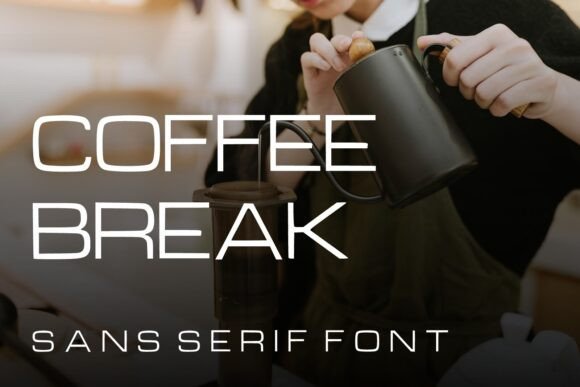
Coffee Break Font: The Ultimate Guide to a Friendly and Versatile Typeface
Are you looking for a font that exudes warmth, friendliness, and approachability? Look no further than the Coffee Break font. This uppercase, easy-to-read sans serif font has become a favorite among designers, crafters, and anyone looking to add a personal touch to their digital designs, presentations, greeting cards, and more. In this comprehensive guide, we’ll dive into the world of Coffee Break font, exploring its features, benefits, and uses.
What is Coffee Break Font?
Coffee Break font is a carefully crafted, uppercase sans serif font designed to convey impeccable friendliness. Its clean lines, simple shapes, and rounded edges make it an approachable and inviting typeface that’s perfect for a wide range of applications. Whether you’re a designer, a crafter, or simply someone looking to add a personal touch to your digital creations, Coffee Break font is an excellent choice.
Key Features of Coffee Break Font
- Uppercase design: Coffee Break font is an all-uppercase typeface, making it perfect for headings, titles, and emphasis.
- Easy-to-read: The font’s simple, sans serif design ensures that your text is clear and legible, even at smaller sizes.
- Friendliness: Coffee Break font’s rounded edges and warm feel make it an inviting and approachable typeface.
- Versatility: This font is suitable for a wide range of applications, from digital designs to crafts, presentations, and greeting cards.
Benefits of Using Coffee Break Font
So, why choose Coffee Break font for your next project? Here are just a few benefits of using this versatile typeface:
- Instant recognition: Coffee Break font’s unique design makes it instantly recognizable, adding a personal touch to your creations.
- Emotional connection: The font’s friendly and approachable feel helps create an emotional connection with your audience.
- Flexibility: Coffee Break font is suitable for a wide range of applications, from digital designs to print materials.
- Easy to pair: This font pairs well with a variety of other typefaces, making it easy to create visually appealing combinations.
Uses of Coffee Break Font
Coffee Break font is an incredibly versatile typeface, suitable for a wide range of applications. Here are some ideas to get you started:
- Digital designs: Use Coffee Break font to add a personal touch to your social media graphics, blog posts, and website headers.
- Crafts: This font is perfect for crafters, adding a friendly and approachable feel to handmade cards, gift tags, and other projects.
- Presentations: Coffee Break font is an excellent choice for presentations, adding a touch of warmth and personality to your slides.
- Greeting cards: Use this font to create personalized greeting cards for special occasions, such as birthdays, holidays, and weddings.
Tips for Using Coffee Break Font
To get the most out of Coffee Break font, here are a few tips to keep in mind:
- Use it sparingly: Coffee Break font’s friendly and approachable feel makes it perfect for emphasis, but use it sparingly to avoid overwhelming your design.
- Experiment with colors: This font looks great in a variety of colors, so don’t be afraid to experiment and find the perfect hue for your design.
- Pair it with other fonts: Coffee Break font pairs well with a variety of other typefaces, so try combining it with other fonts to create visually appealing combinations.
Coffee Break Font vs. Other Fonts
So, how does Coffee Break font compare to other fonts on the market? Here are a few key differences:
- Unique design: Coffee Break font’s rounded edges and warm feel set it apart from other sans serif fonts.
- Friendliness: This font’s friendly and approachable feel makes it perfect for designs where you want to create an emotional connection with your audience.
- Versatility: Coffee Break font is suitable for a wide range of applications, making it a great addition to any designer’s toolkit.
In conclusion, Coffee Break font is an excellent choice for anyone looking to add a personal touch to their digital designs, crafts, presentations, and greeting cards. Its unique design, friendly feel, and versatility make it a great addition to any designer’s toolkit. Whether you’re a seasoned designer or just starting out, Coffee Break font is sure to become your go-to typeface for any occasion.
- What is Coffee Break font? Coffee Break font is an uppercase, easy-to-read sans serif font designed to convey impeccable friendliness.
- What is Coffee Break font used for? This font is suitable for a wide range of applications, including digital designs, crafts, presentations, and greeting cards.